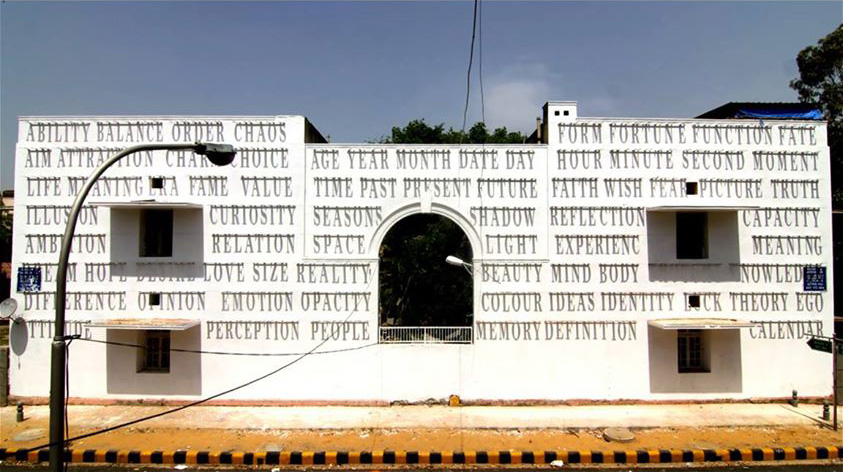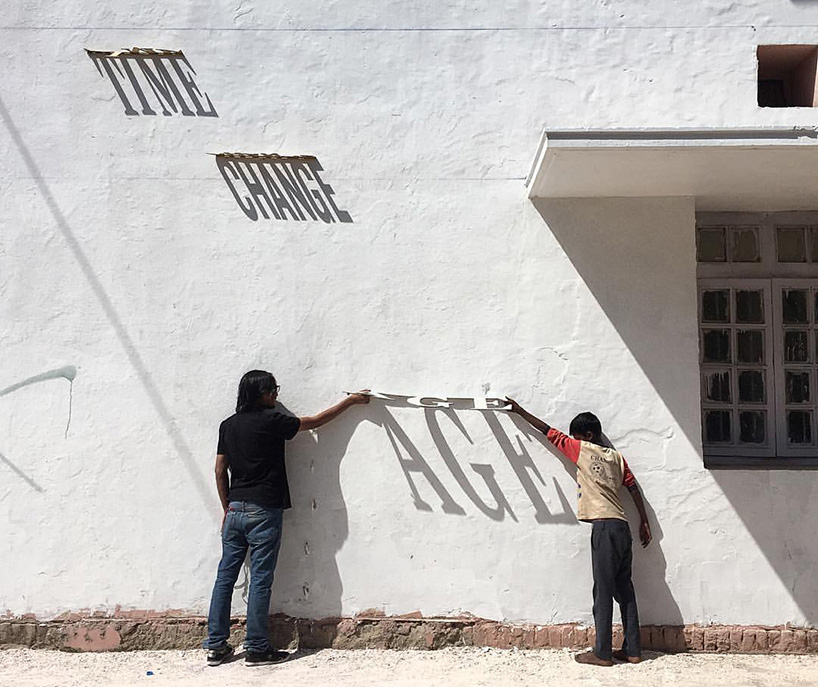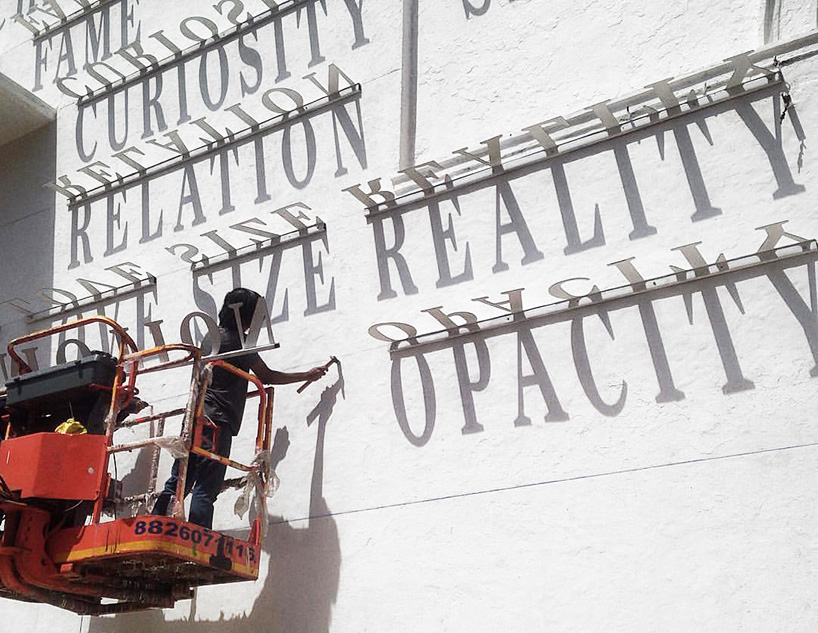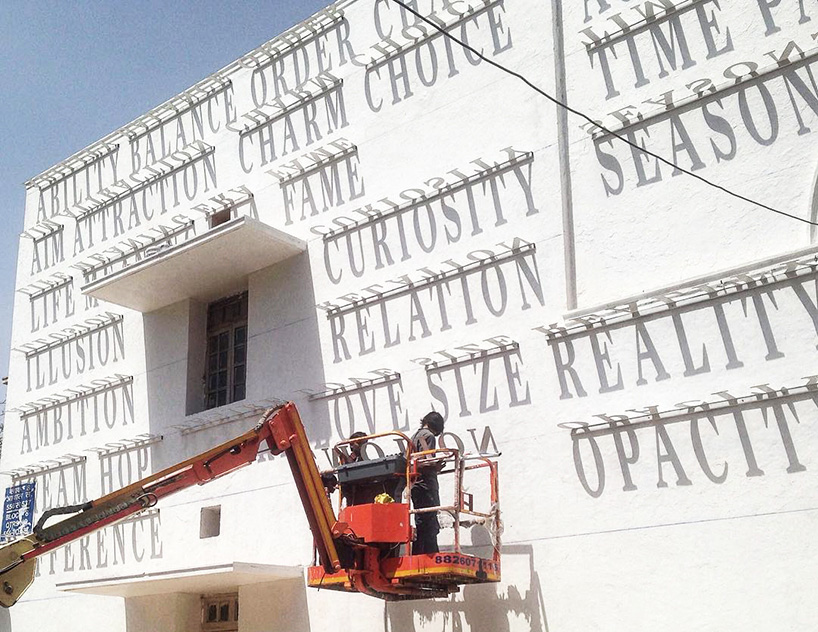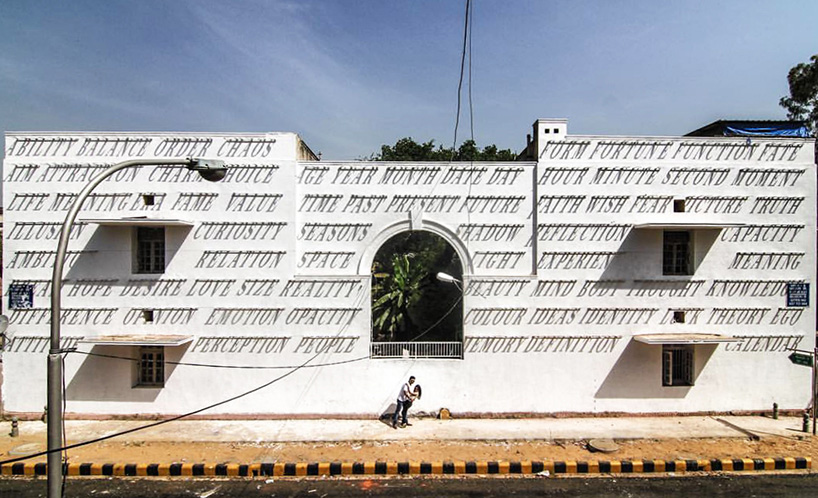
DAKU’s shadowy typographic piece of art needs the sun
A street artist unlike any other, DAKU is famously known as India’s Banksy. Holding on to his anonymity the way creatives that do not give a single dime for the celebrity status do DAKU the artist is best known for his provocative works that speak volumes and his latest public artwork which he presented as part of Delhi’s recent street festival was unique. This typographic installation begged to differ by using the element of sunlight. The sun brought this project to life and everyone was amazed. Street art is transforming our habitat and letters were there to spell DAKU’s message to the world. Aptly called “Time changes everything”, the typographic installation used the sun as numerous shadows reflected on the concept of time.
Comprised of a series of cut-outs of words mounted on the walls that change their to form the message (words that speak of all those things that change with time such as love, seasons, wisdom and perception) this typographic piece was a marvel to look at each and every day under the Indian sky.
“The work is changing, the wall is changing. Everything around us is changing constantly. That’s the law of the universe”
“This typographic piece by DAKU ingeniously visualises the concept of time by playing with letters and shadows. The oldest forms of measuring time were sundials used by the Egyptians as early as 1500 BC, and this piece takes that concept to a whole new level” writes St+art India. “By mounting several words on the wall which cast an evolving shadow through the day, the artist speaks metaphorically of all the things in life which change over time. The words highlighted in this piece not only speak of the nature of our lives but also the ephemeral nature of street art - which is constantly changing”.
“Every day, throughout the year, this piece will come alive between 09:30 AM to 14:30 PM, after which it will disappear with the fading sun. The best time to view the wall is at 12:00 (noon) when the shadow falls directly on the wall making the words clearly legible. As time passes, the slant of the shadow increases making them slowly fade away as the sun sets. The work will NOT be visible between 15th May to 15th August as there won’t be any shadow on the wall”.
DAKU spent almost a month studying the way the sun falls on the wall and read up extensively on sundials, before finally making the piece. “The work is changing, the wall is changing. Everything around us is changing constantly. That’s the law of the universe” he says to Mashable.
Installed in New Delhi’s Lodhi Colony, which is referred to as India’s first public art district, “Time changes everything” proves although everything changes indeed, people do communicate through typography since forever. This typographic artwork of the man and the sun will be ours again after the 15th of August, when the sun will change its direction.